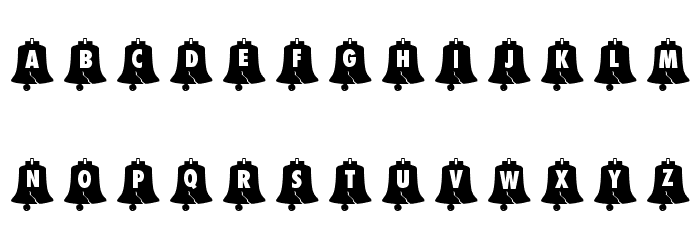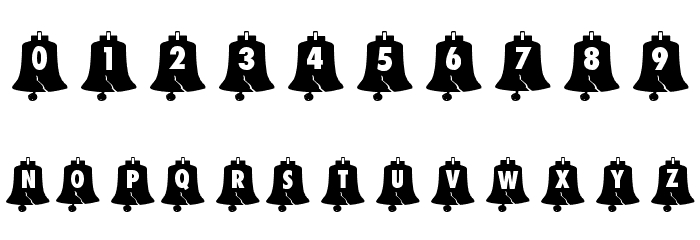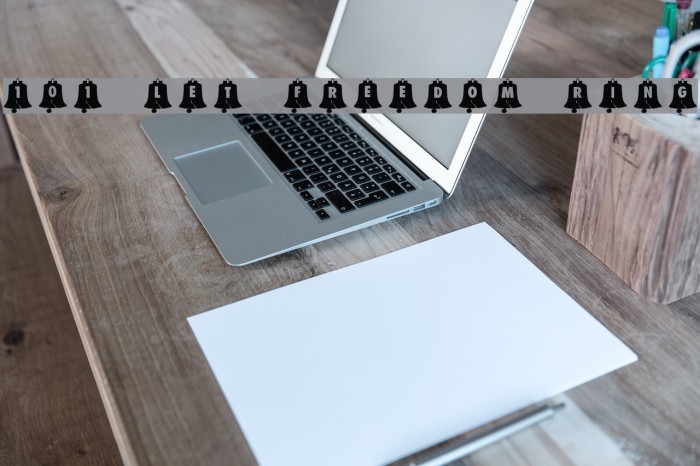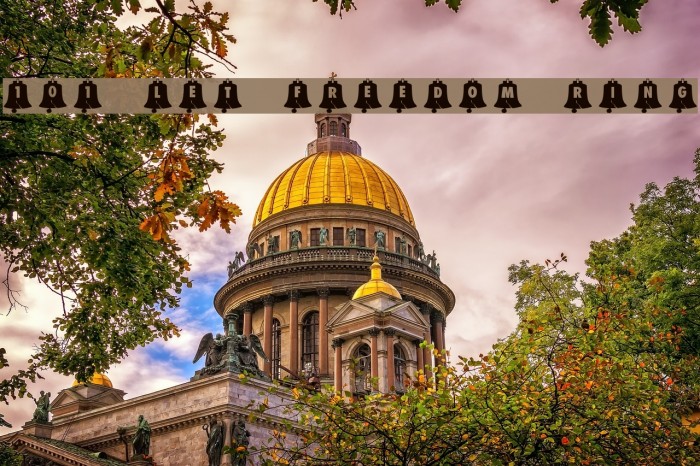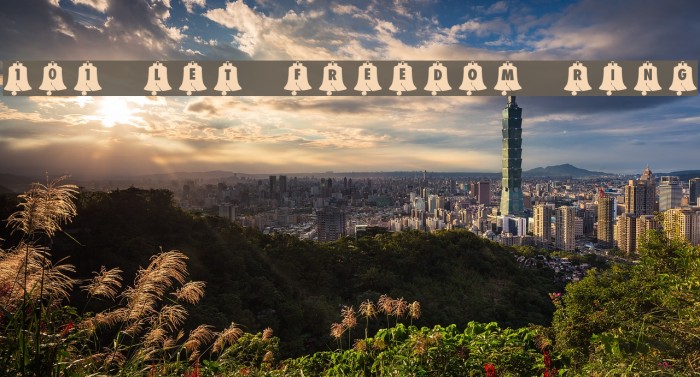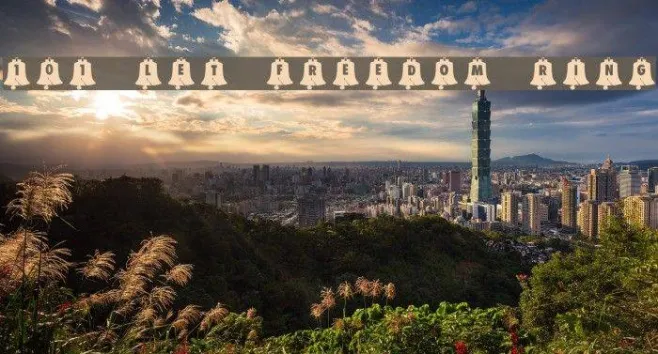
101! Let Freedom Ring Font
This unique decorative font features each character encased within the silhouette of a bell, creating a striking and thematic design. The uppercase letters, numbers, and special characters are all presented in this distinctive style, making it ideal for projects that require a bold and thematic approach. The font's design is consistent across all characters, maintaining a uniform appearance that enhances its decorative appeal. The bell motif adds a sense of celebration and freedom, making it suitable for patriotic or festive occasions. The characters are well-defined within the bell shapes, ensuring readability while maintaining the decorative theme.
A decorative font with characters encased in bell silhouettes, ideal for thematic designs.
- Proposed Projects: Perfect for holiday cards, patriotic event posters, themed invitations, and decorative signage.